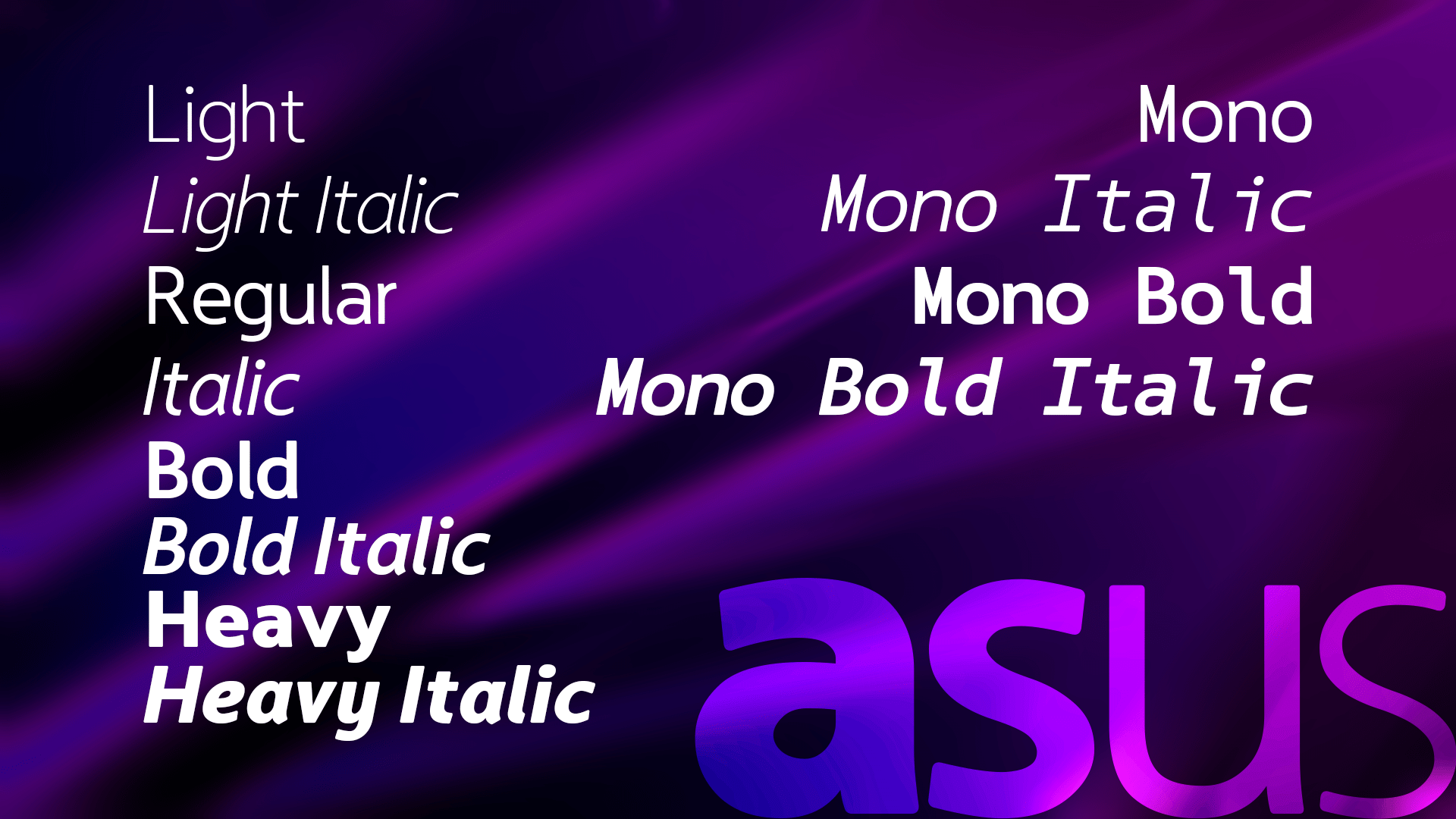
LT Asus Font
LT Asus Sans Serif Font
Garino is a free modern sans-serif typeface family manufactured by LyonsType. It gains its expressive character from a dynamic sweep in the curves and high-contrast transitions. Asus is not only a typeface driven by the digital notion, but its name is also after the founder’s computer vendor “Asus/Republic of Gamers” – most notably for a qualified purpose of applying monospace variations to give the typeface a real digital perspective.
Asus is a distinctive type design to display a depth of round corners (you can barely see round corners depending on the size of the font) and a solidity of humanism. It isn’t necessarily a typeface to take the steps of a “tried and tested” sequence, it’s to spice up the lightheartedness of digital brands of individuals to where the typeface is usable for technology, epic projects, personal banners, personal signages, and the rest of the like. A fixed-width monospace variant of Asus is also useful for terminal emulation, forms of programming, and anything that individuals use with monospace typefaces. Even the monospace typeface out of the family shows quality at a 12 pt size regardless of which style is set for it.
Like other gamer-esque and superiority of fonts – the font’s resilient sense of robustness, along with the letter proportions and the rest of it stack up its flexibility on every aspect of digitalism – not too edgy, not too hard to read – just the right amount of hinting it needs.
Asus is available in 4 roman styles, 4 italics and (as mentioned before) includes a monospace variant with 2 italics. The family are as follows: Light, Light Italic, Regular, Italic, Bold, Bold Italic, Heavy, Heavy Italic, Mono, Mono Italic, Mono Bold and Mono Bold Italic.